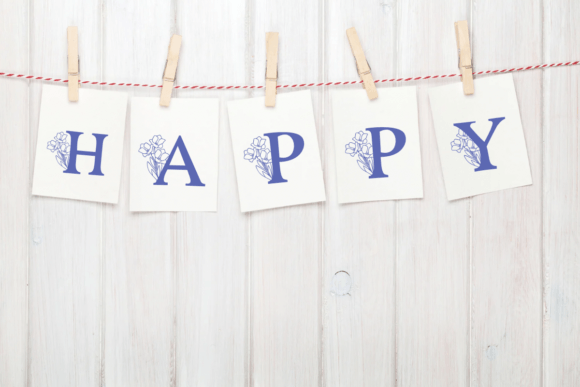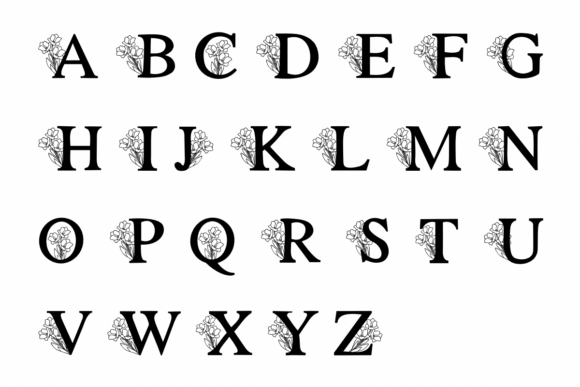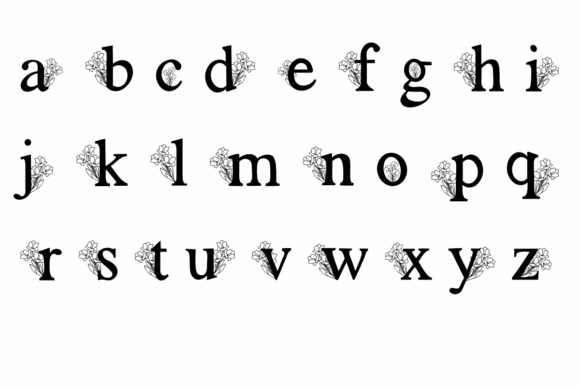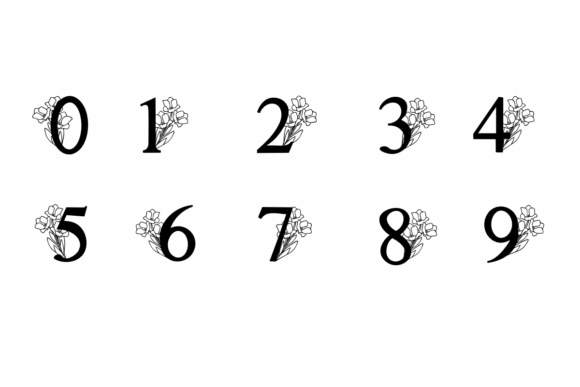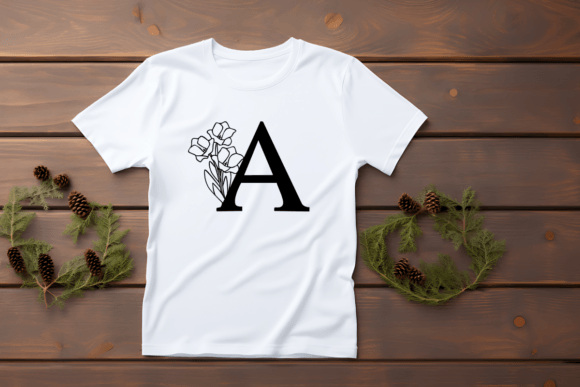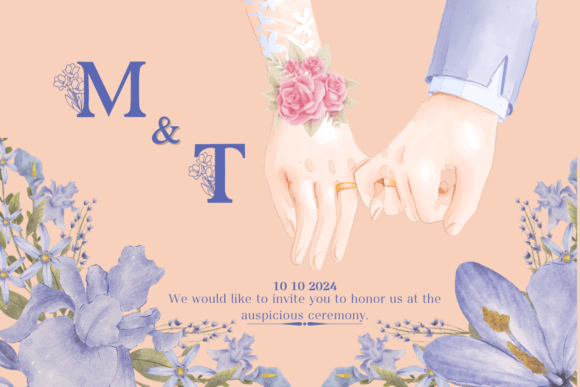
The Enchanting World of Flowers Font: A Designer’s Delight
I still remember the day I stumbled upon the Flowers Font while working on a wedding invitation project. My client wanted something that captured the essence of a whimsical garden party, and I was determined to deliver. As I scrolled through font libraries, Flowers Font caught my eye – each letter was beautifully shaped with flowers, exuding a charming and playful vibe. It was love at first sight! 💐
An Honest Review: The Good and the Quirky
What I Love About Flowers Font ✨
- Unique and eye-catching design: Perfect for floral-themed designs, invitations, and cards.
- Elegant and whimsical: Adds a touch of sophistication and playfulness to any text.
- High-quality graphics: The font is beautifully crafted with intricate details.
- Versatile: Suitable for various design projects, from digital to print.
While Flowers Font is a stunning addition to any design, there are a few things to keep in mind:
- Legibility: Some letters, like lowercase ‘q’ and ‘x’, might be a bit tricky to read, especially at smaller font sizes.
- Language support: Flowers Font might not support all languages or special characters.
- Overuse: While the font is beautiful, using it excessively might make your design look cluttered.
The Story Behind Flowers Font: A Designer’s Inspiration
The creator of Flowers Font, a talented designer with a passion for typography, was inspired by the beauty of nature and the art of floristry. They wanted to craft a font that would capture the essence of flowers and bring a touch of whimsy to any design. With Flowers Font, they aimed to create a unique and eye-catching typeface that would make designs stand out.
Q: Is Flowers Font suitable for body text?
A: While Flowers Font is beautiful, it’s best suited for headlines, titles, or short paragraphs. Its unique design and intricate details make it more suitable for display text.